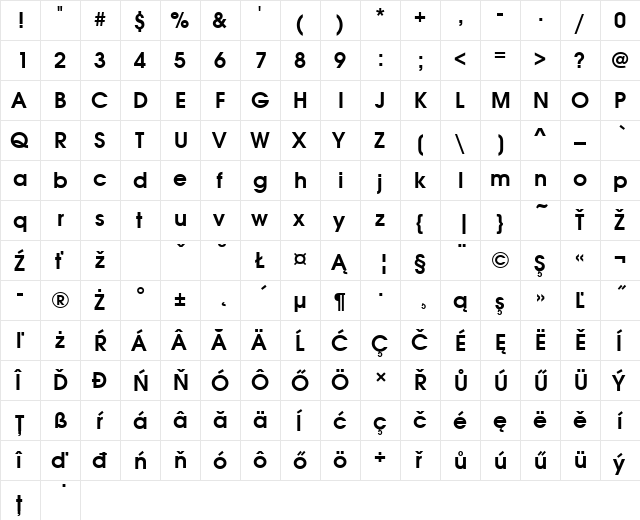
AvantGarGotItcTEEDem Regular
AvantGarGotItcTEEDem is a composed and adaptable typeface that performs quietly and consistently across a wide range of design contexts.